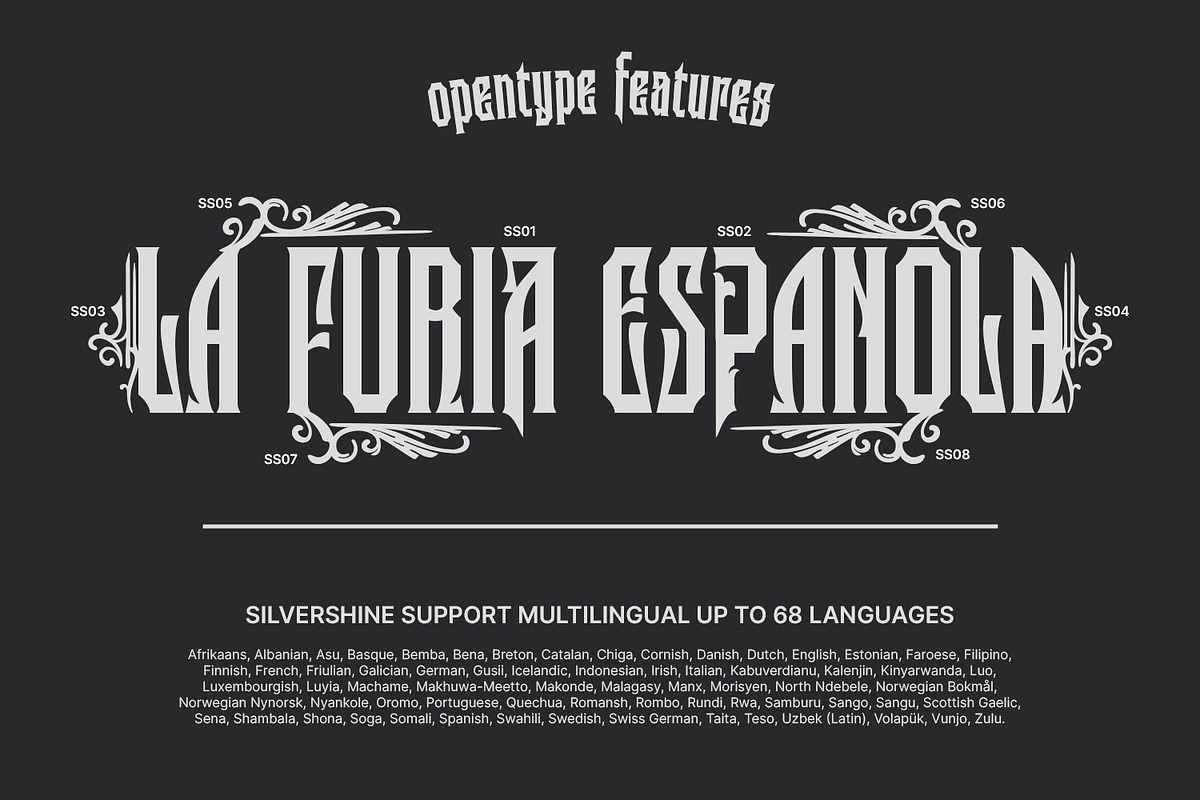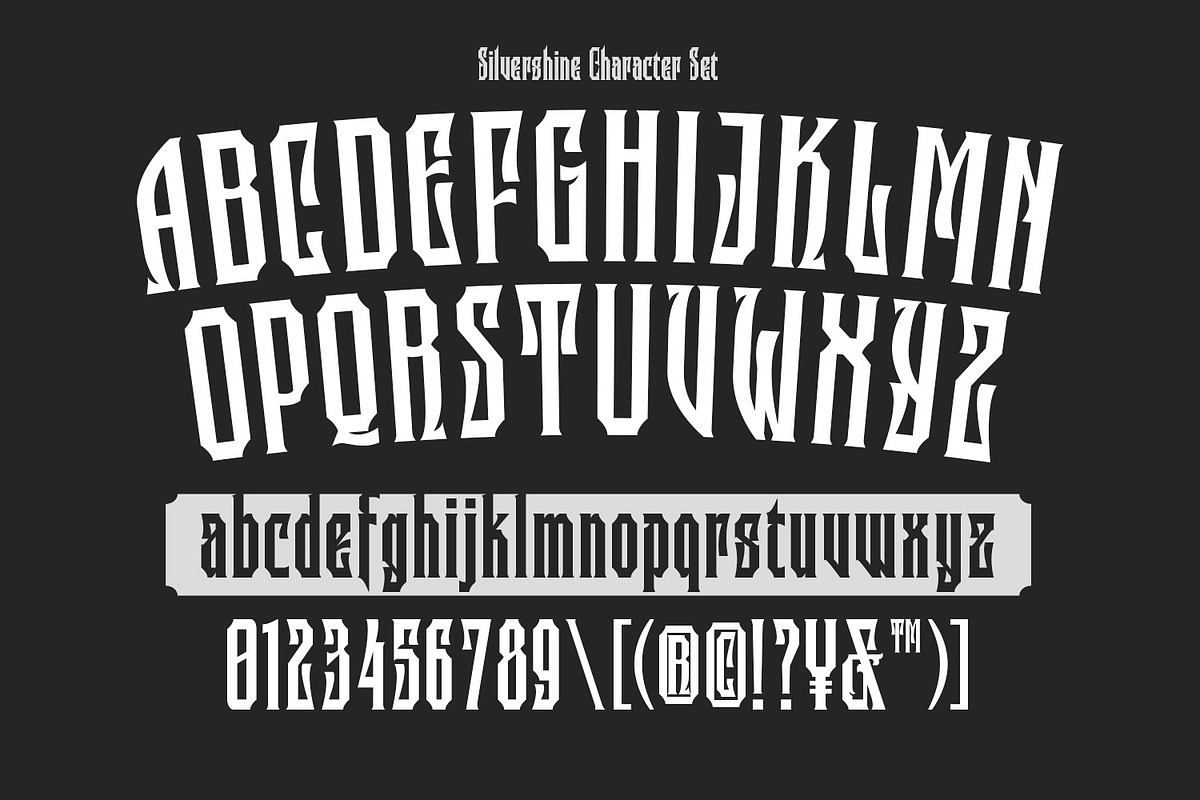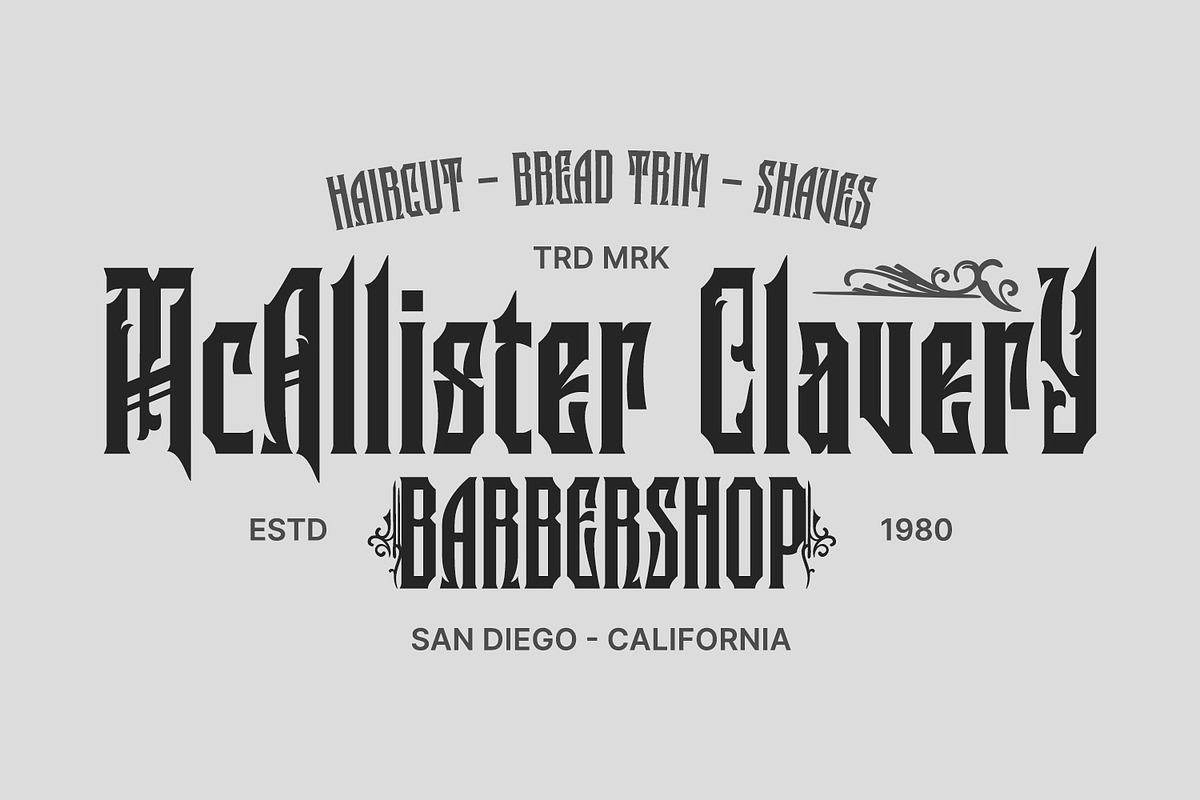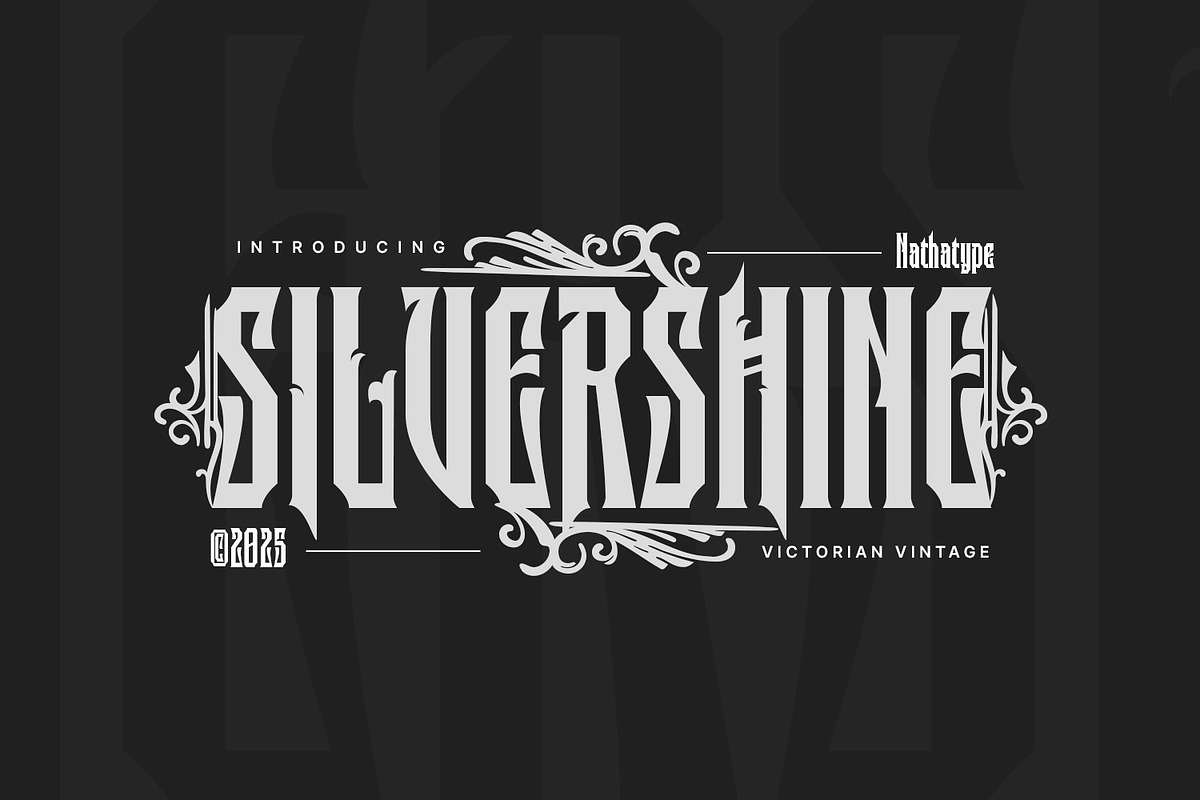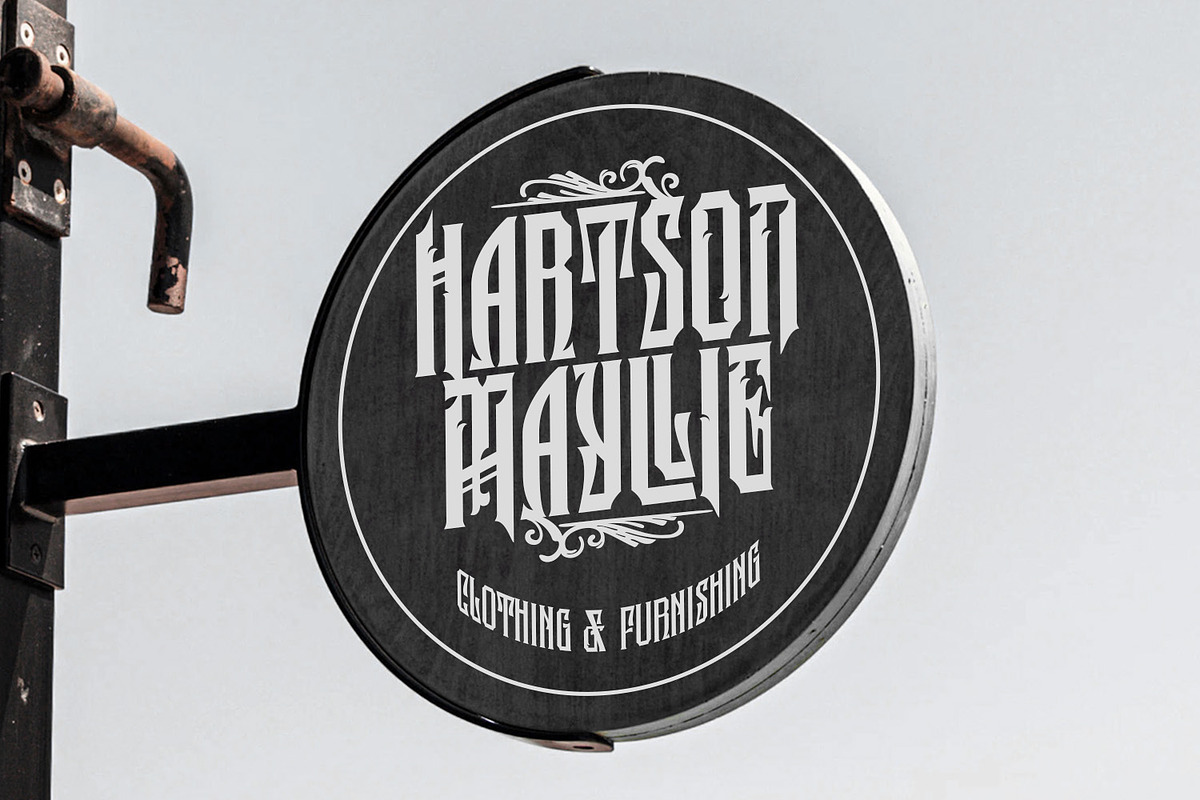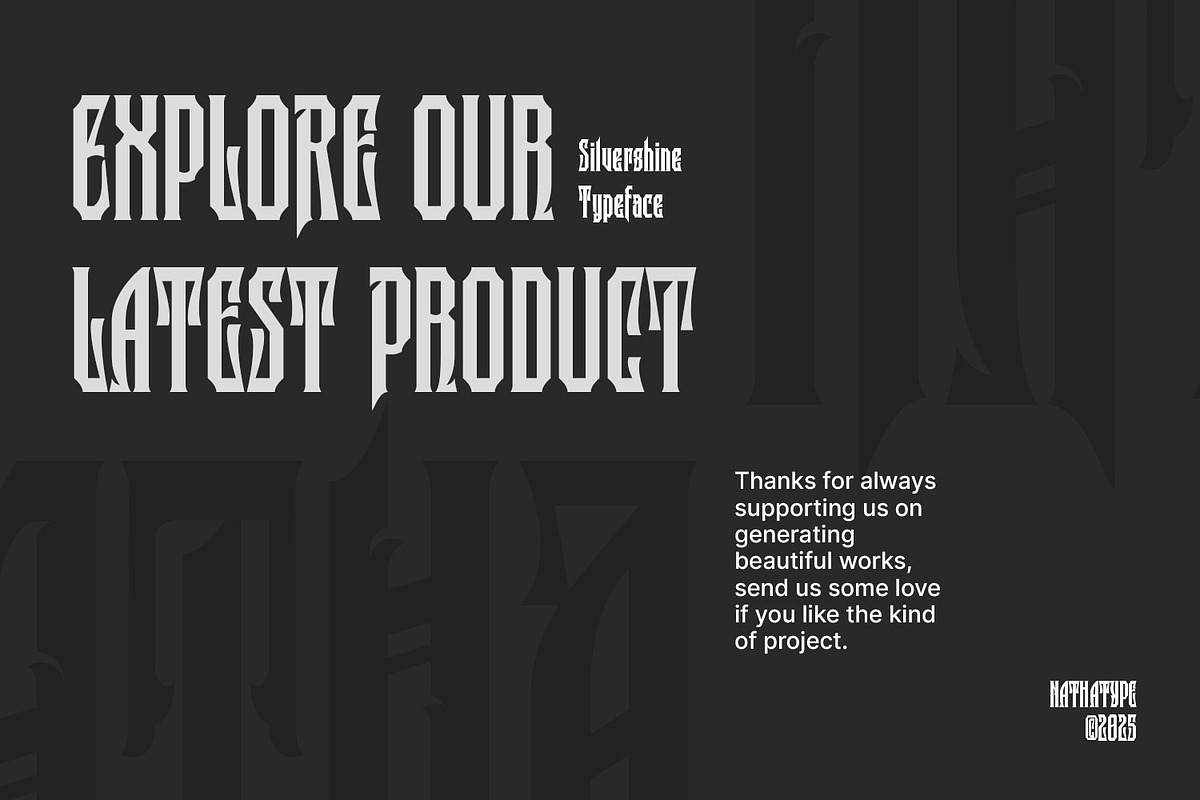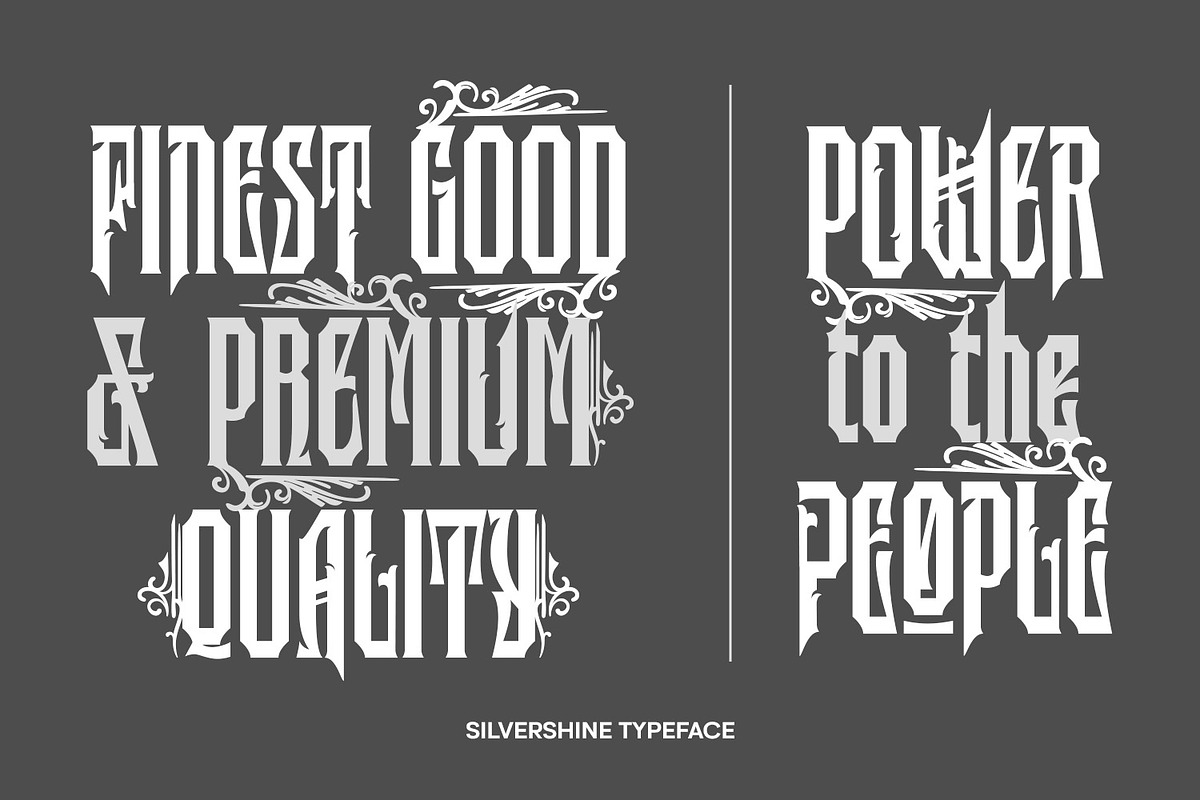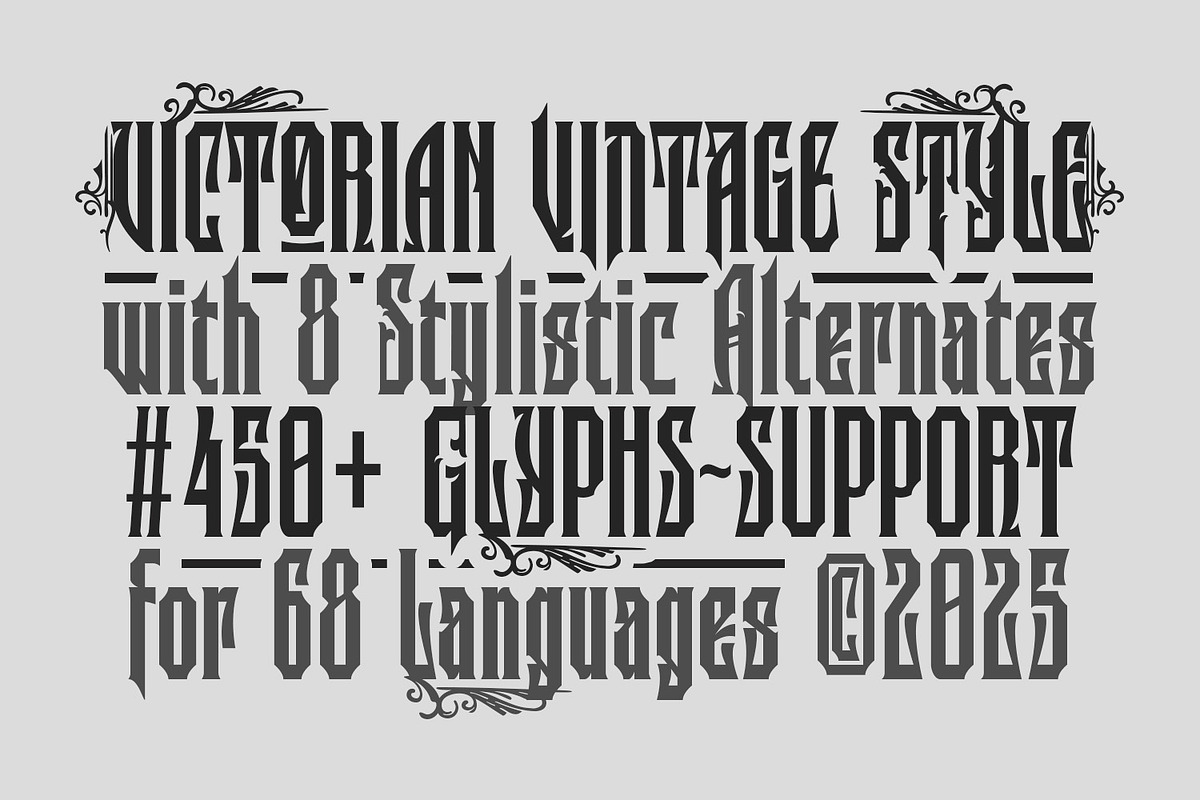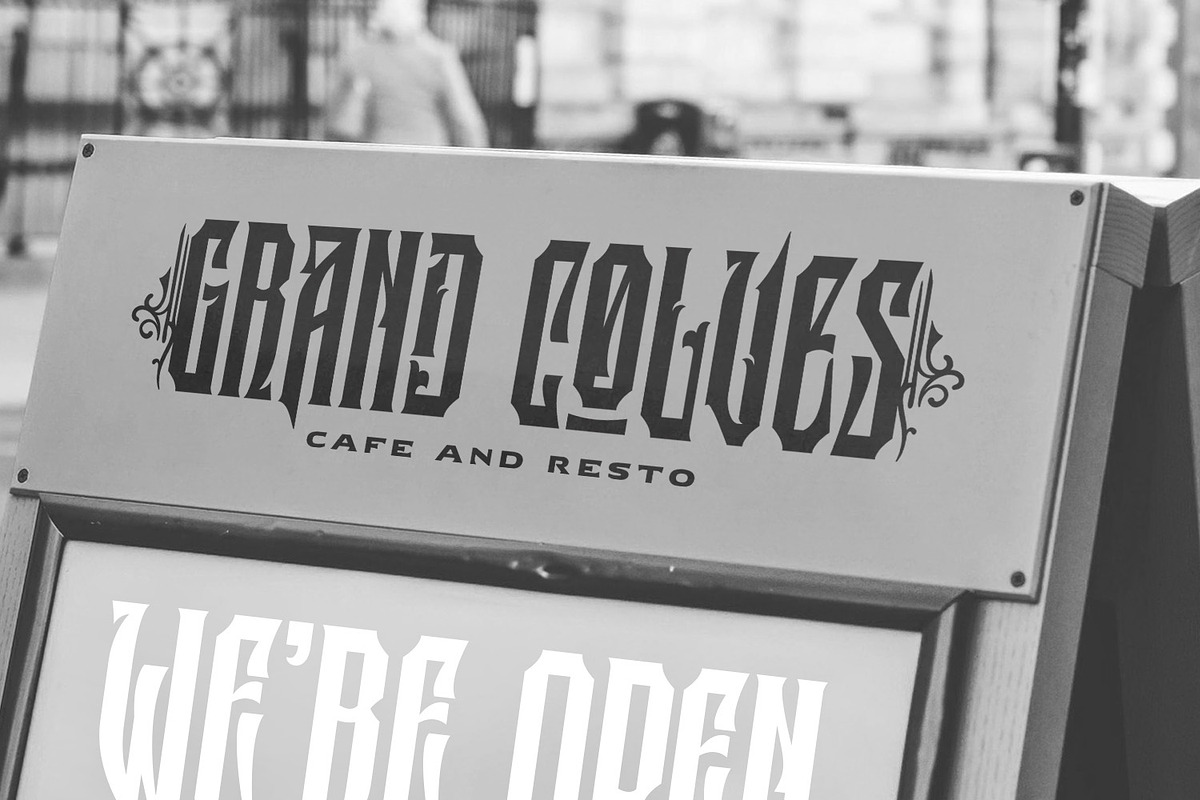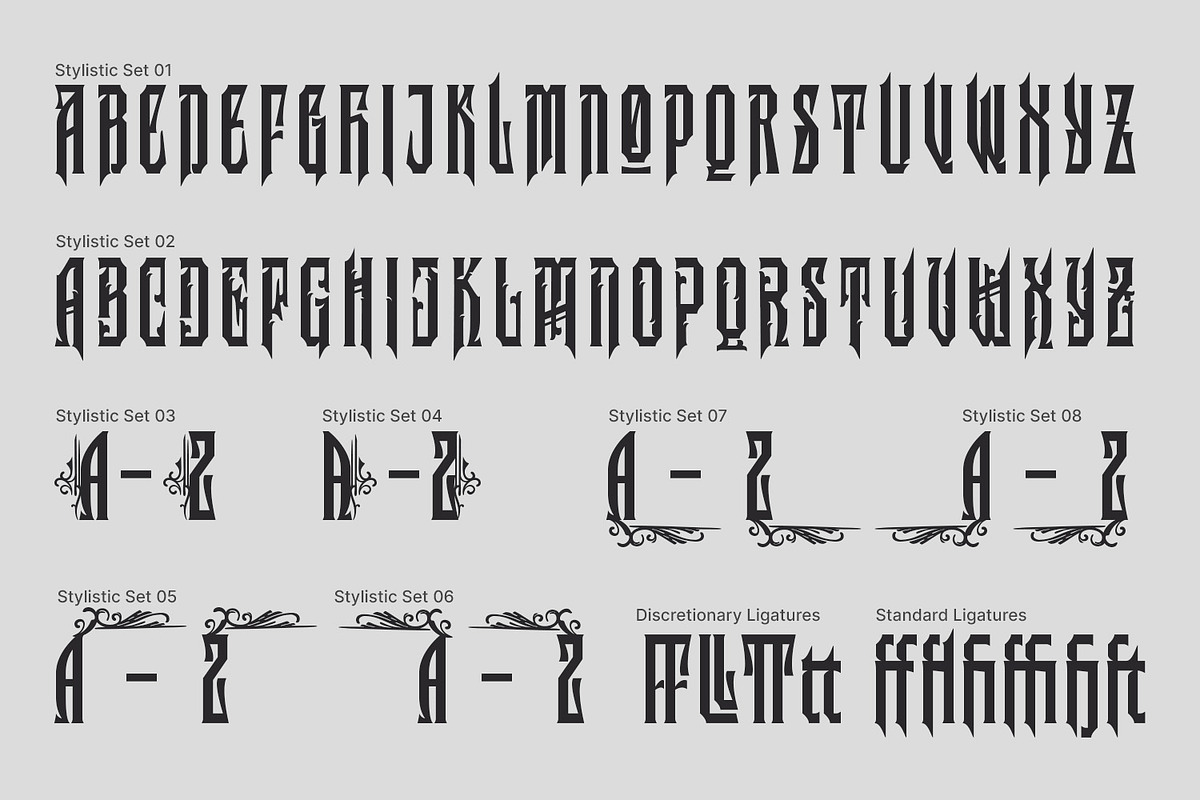
Silvershine
Silvershine is a vintage display font inspired by the ornate sophistication of Victorian-era lettering. Designed in uppercases, it features a fairly thick weight paired with sharp, defined outlines that give each character a commanding presence. Silvershine combines historic charm with striking clarity, making it an ideal choice for designs that demand both elegance and impact. In addition, enjoy the features here.
- Stylistic Sets
Silvershine fits in branding, packaging, logos, posters, headlines, and many more designs. Find out more ways to use this font by taking a look at the font preview.